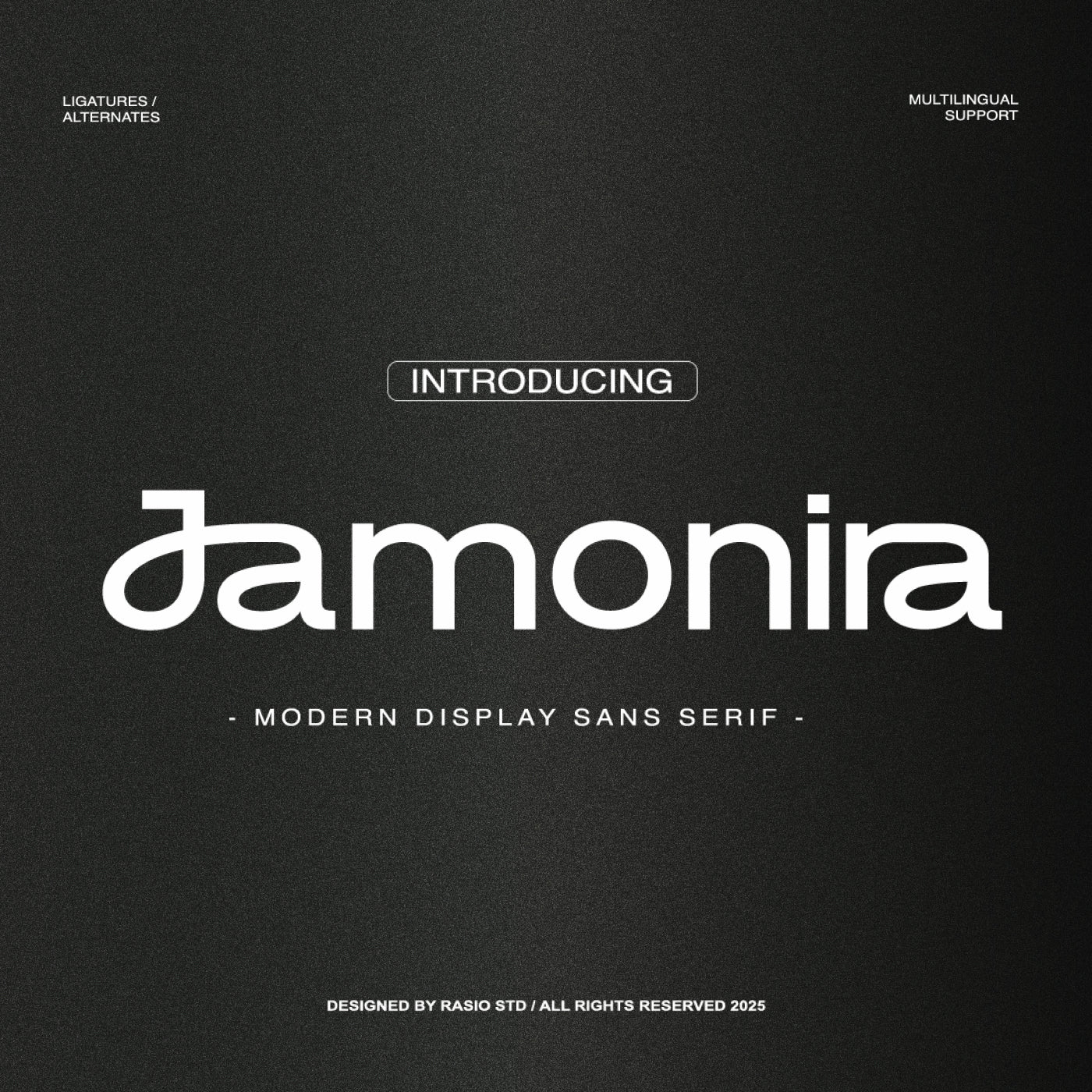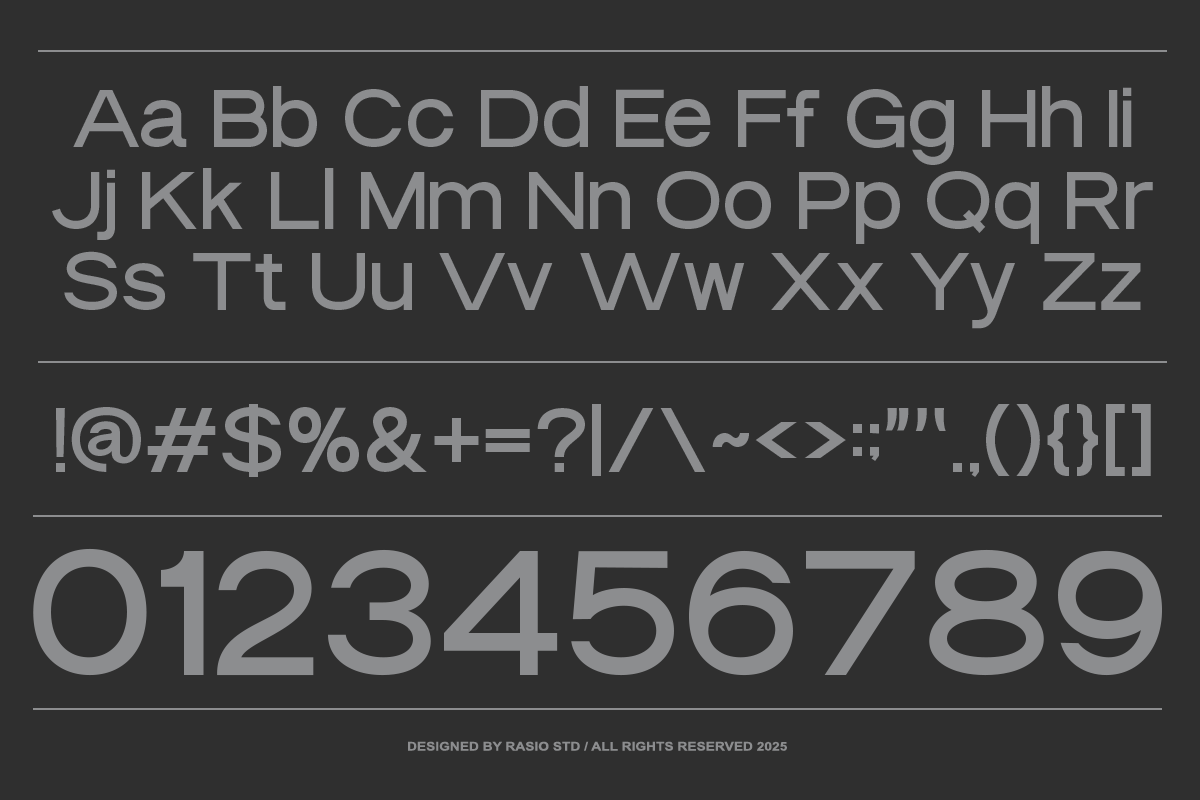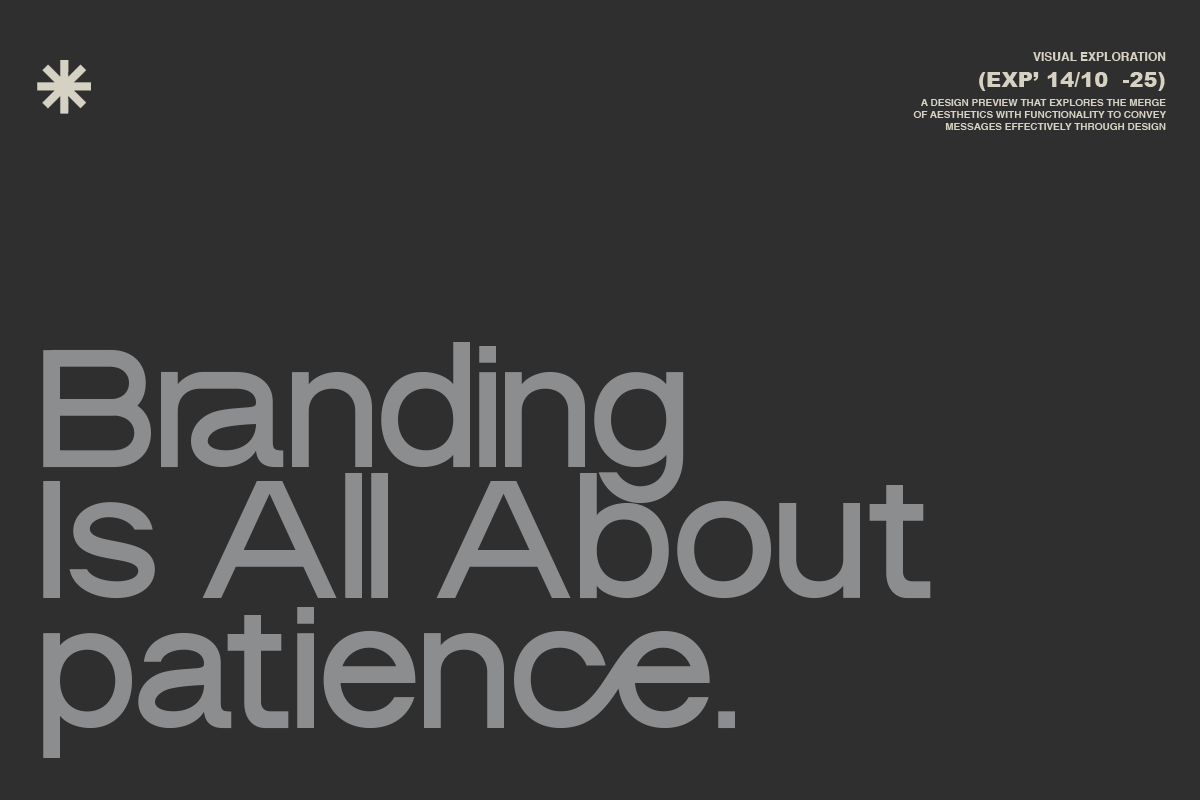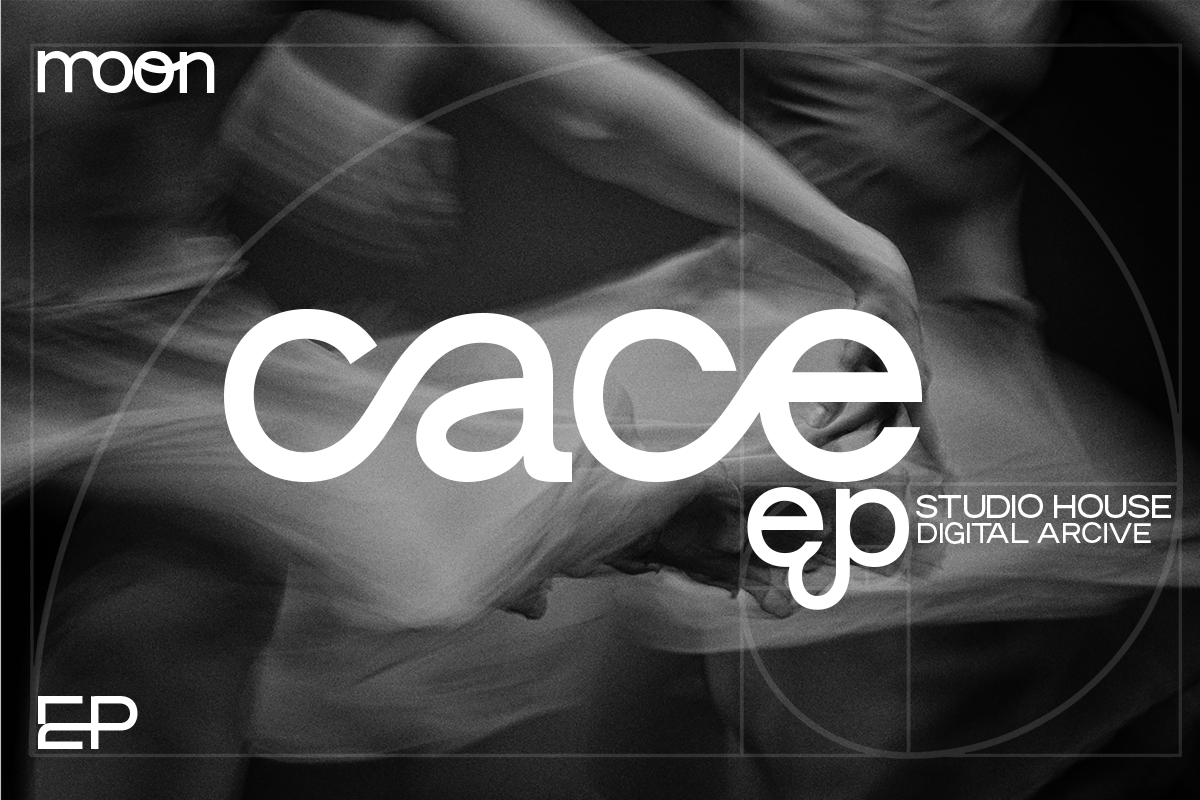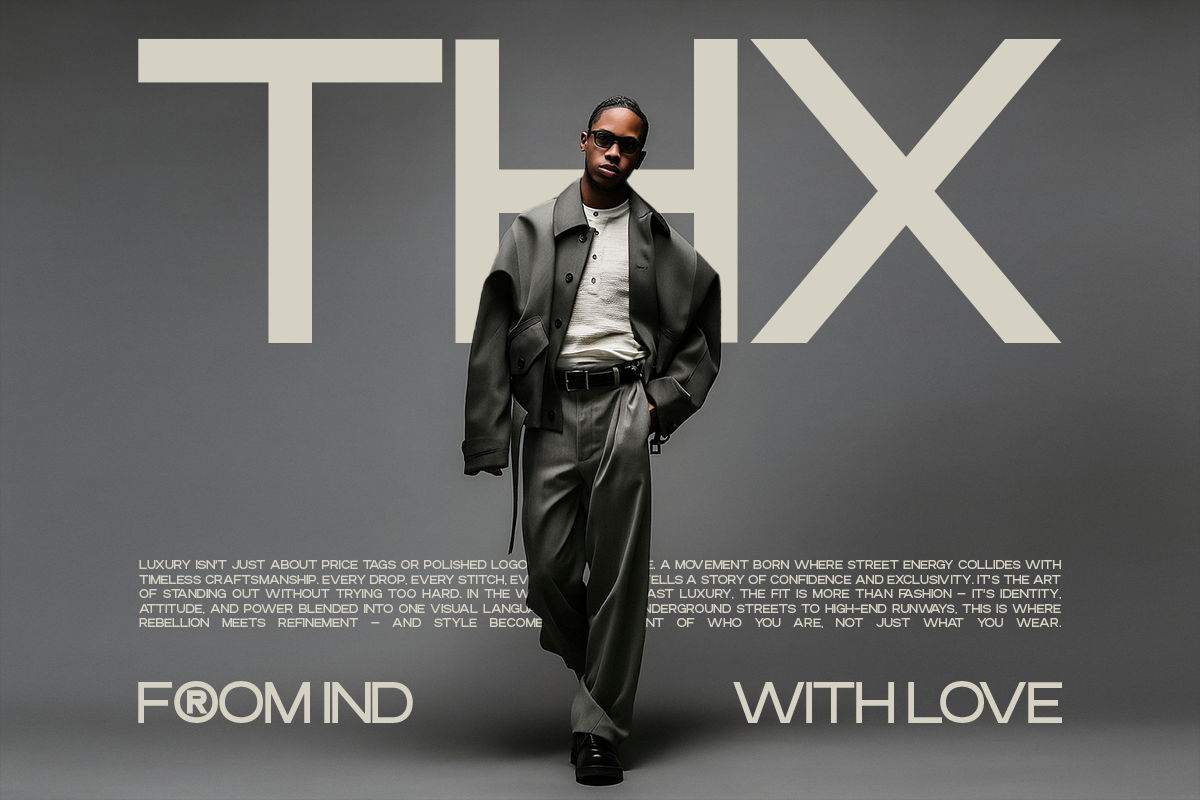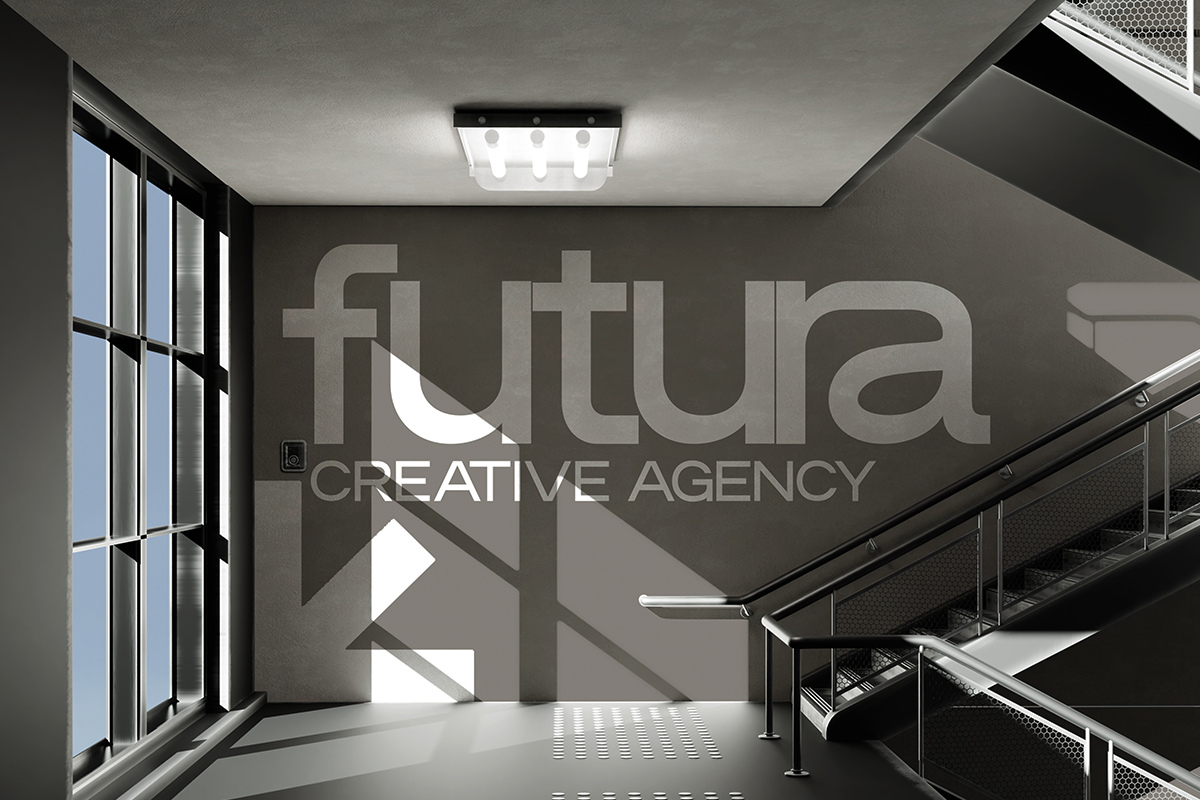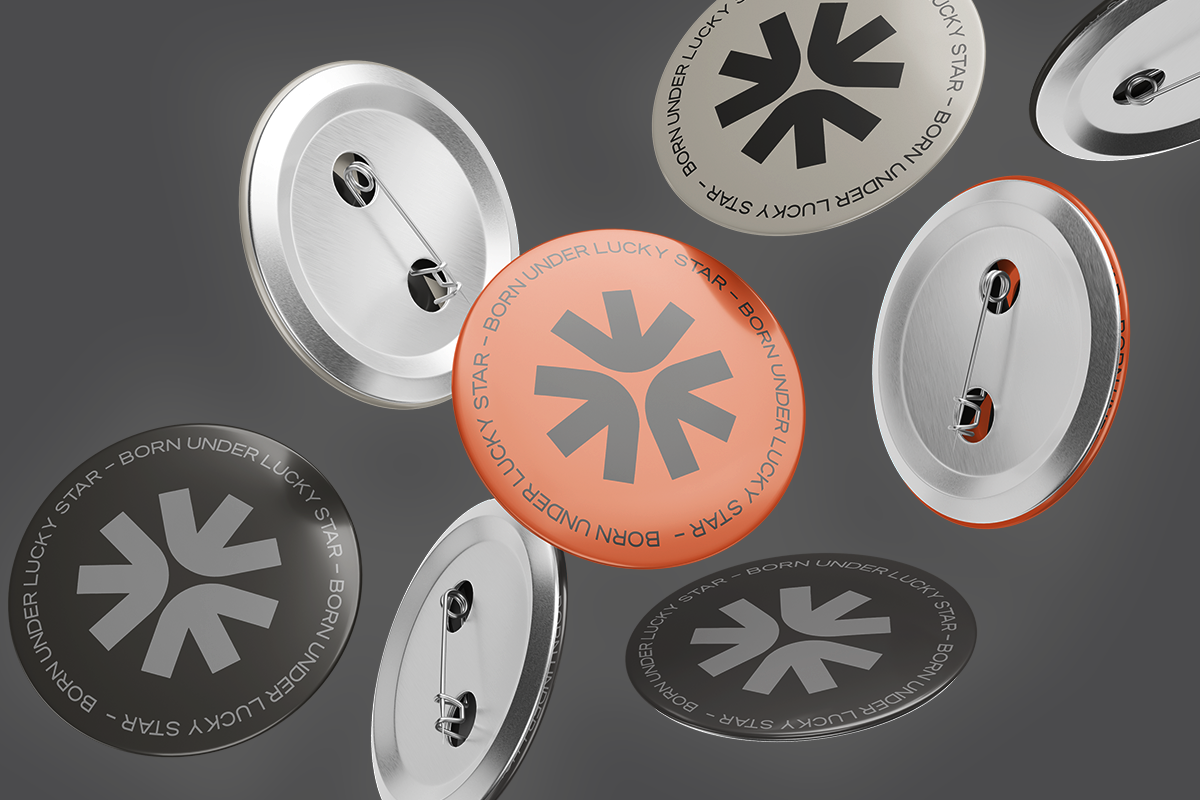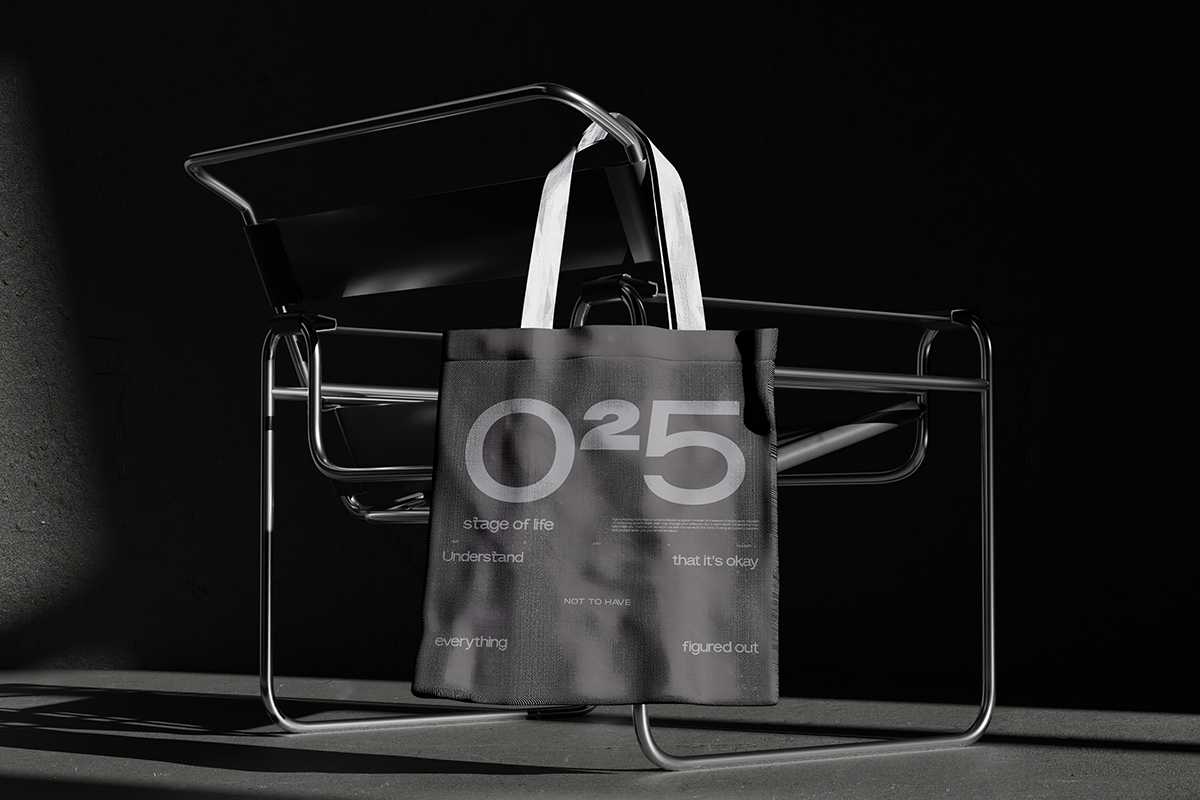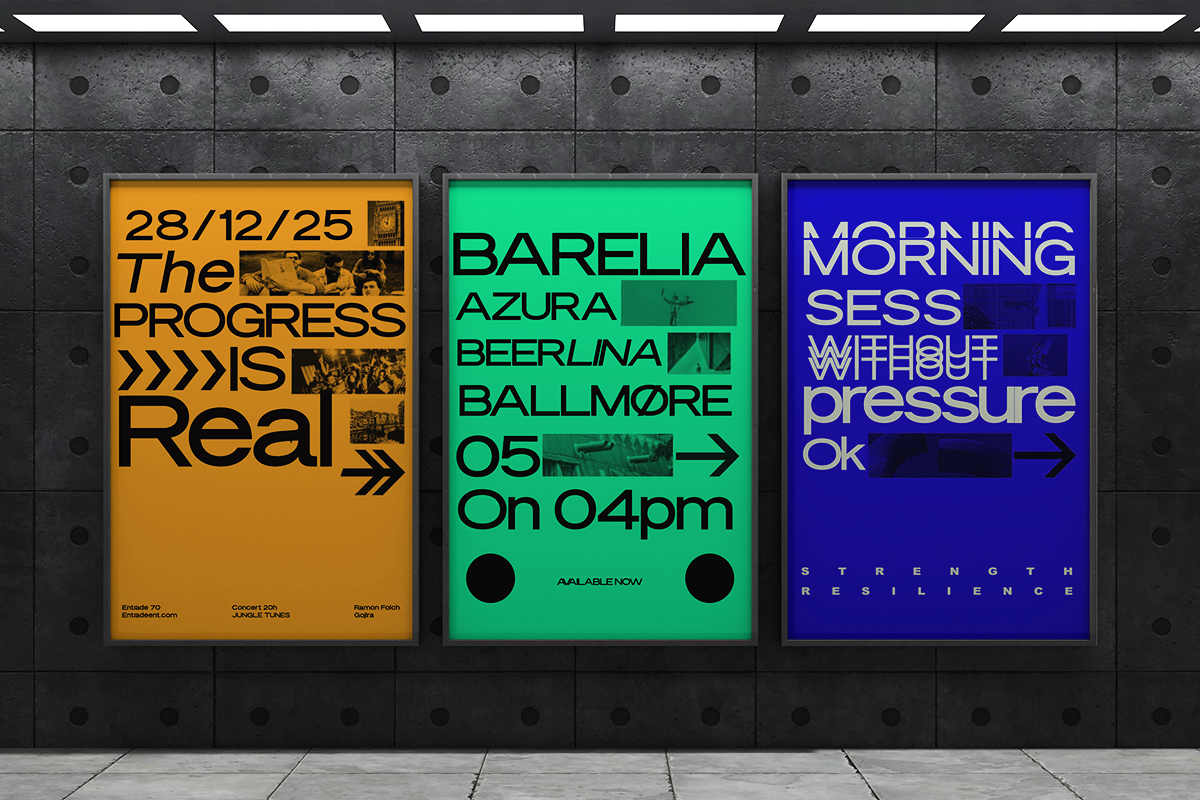
Jamonira Modern Display Sans Serif Font
Jamonira Display Sans Serif Font is a refined fusion of modernism and geometric precision. With clean structure, fluid alternates, and contemporary proportions, it creates a professional and futuristic tone ideal for digital branding, tech interfaces, and editorial design. The font’s unique alternates and ligatures offer stylistic flexibility, while its smooth letterforms deliver a high-end, minimal look. Perfect for designers seeking sophistication and simplicity, Jamonira brings clarity, balance, and creativity to any visual layout. Its multilingual support ensures usability across global projects.
Relevance and Use Cases is perfect for technology branding, digital interfaces, modern editorials, minimalist packaging, futuristic poster design, and clean corporate identities that need professional geometric balance and elegance.
Alternates & Ligatures
Numerals & Punctuation
Jamonira is a geometric display sans serif font featuring clean structure, alternates, and ligatures, available in TTF, OTF, and WOFF formats. It includes uppercase and lowercase letters, numerals, punctuation, and multilingual character support.